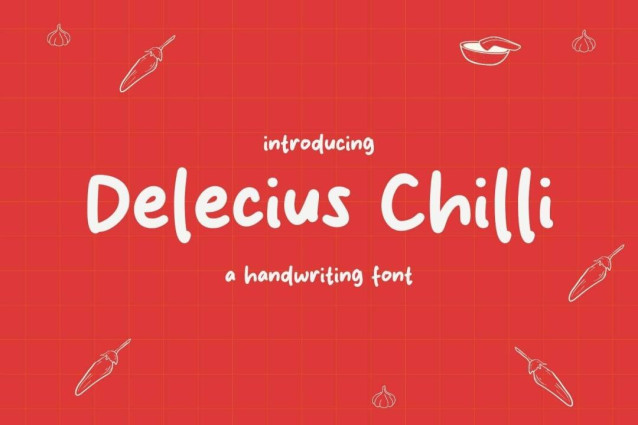
Delecius Chilli Font
Delecius Chilli Font is a simple and friendly handwritten font. Its natural and unique style makes it incredibly fitting to a large pool of designs. The only limit is your imagination!